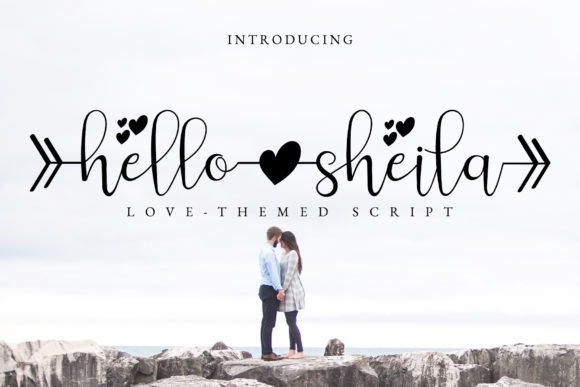
Welcome to the world of Hello Sheila Font, a captivating script font that will transform your designs with a touch of amorous flair. Its graceful glyphs, adorned with delicate arrow swashes, are crafted to embody the essence of love and affection, promising to infuse your creations with a heartfelt charm.
Immerse yourself in the beauty of Hello Sheila Font, a script font that dances across the page with the grace of a ballerina. The flowing strokes, meticulously crafted by airotype, create an elegant aesthetic that will effortlessly elevate your designs.
Hello Sheila Font is the perfect choice for capturing the essence of romance and expressing your heartfelt emotions through design. Its versatility extends from wedding invitations and love letters to branding and social media posts, making it a font for all occasions.
Experience the allure of Hello Sheila Font, a font that whispers sweet nothings into the ears of your audience. Its enchanting swashes will leave an unforgettable impression, whether used as a display font or as a complementary element to other typefaces.
Embrace the allure of Hello Sheila Font, a script font that will leave your audience smitten. Its romantic charm will add a touch of magic to your designs, making them irresistible and unforgettable. As a script font, it is perfect for creating logos, branding materials, and packaging that exudes elegance and sophistication.